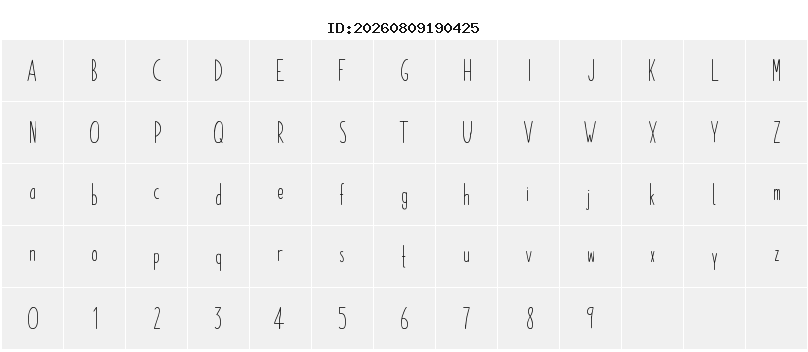
• Font Name: Paper Daisy
• Description: Paper Daisy - A handwritten condensed font © maja.mint 2016. All Rights Reserved
About Paper Daisy.ttf
Paper Daisy.ttf is a modern, elegant sans-serif font designed for ultimate readability and visual harmony. Perfect for branding, headlines, web design, and print materials.